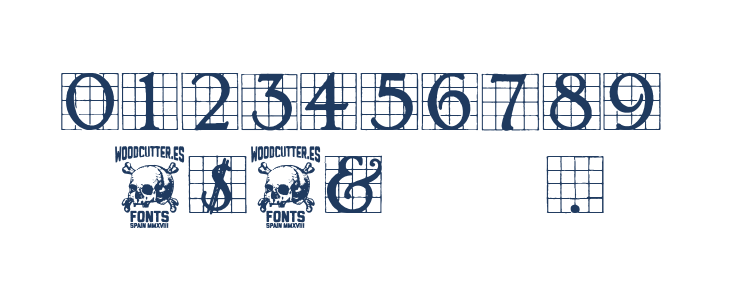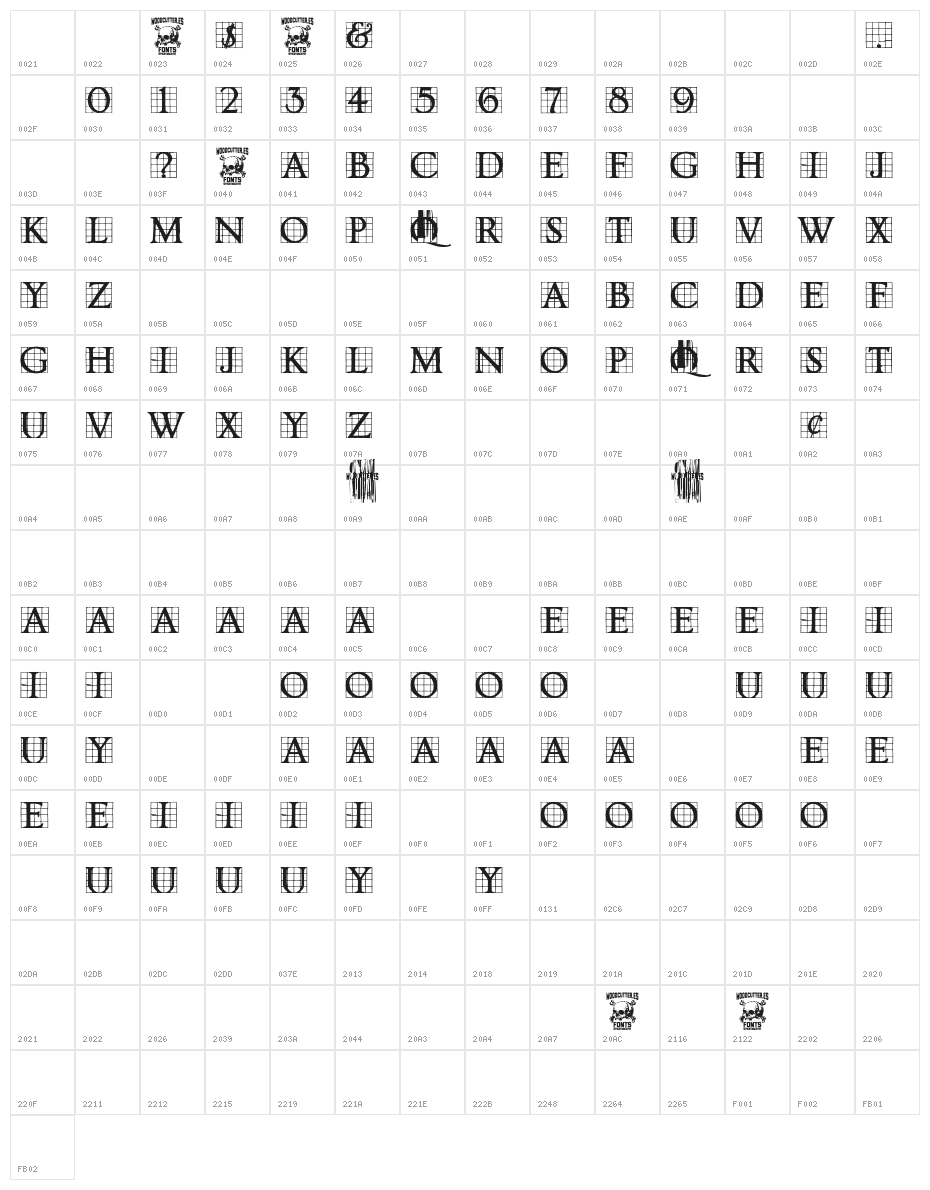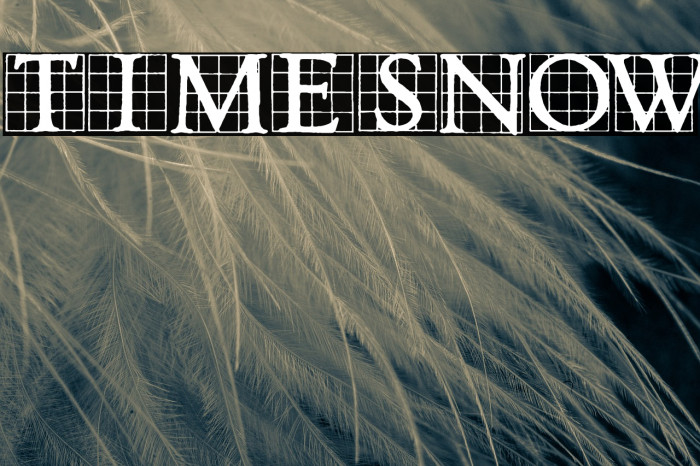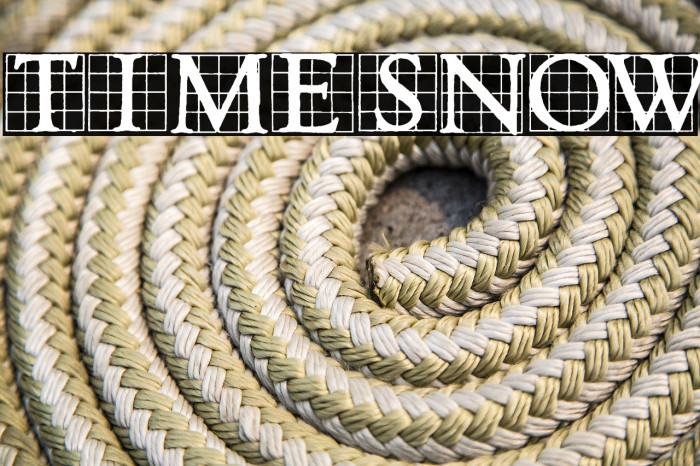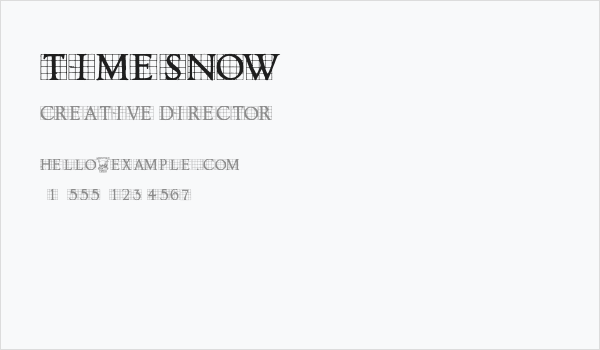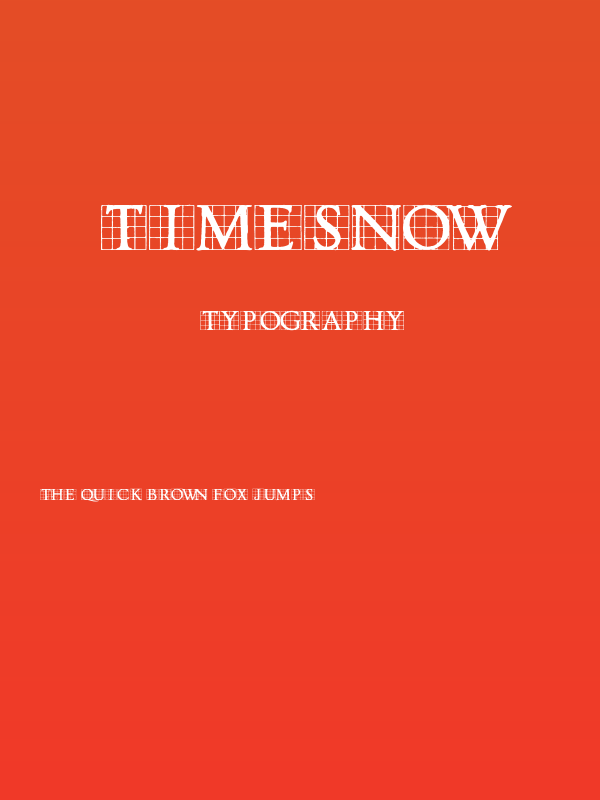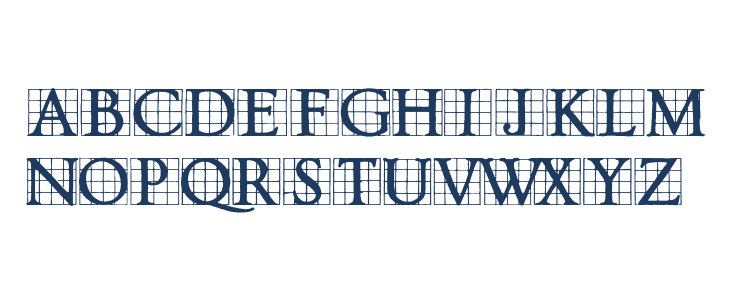
Timesnow Font
Timesnow Description
This font features a bold and decorative style with a grid-like pattern overlaying each character. The uppercase letters are designed with a strong presence, incorporating thick strokes and a unique, artistic flair. The lowercase letters maintain the same boldness, ensuring consistency throughout the typeface. Numbers and special characters are crafted with the same attention to detail, making them stand out. The overall design is reminiscent of a stencil or industrial aesthetic, making it suitable for eye-catching displays.